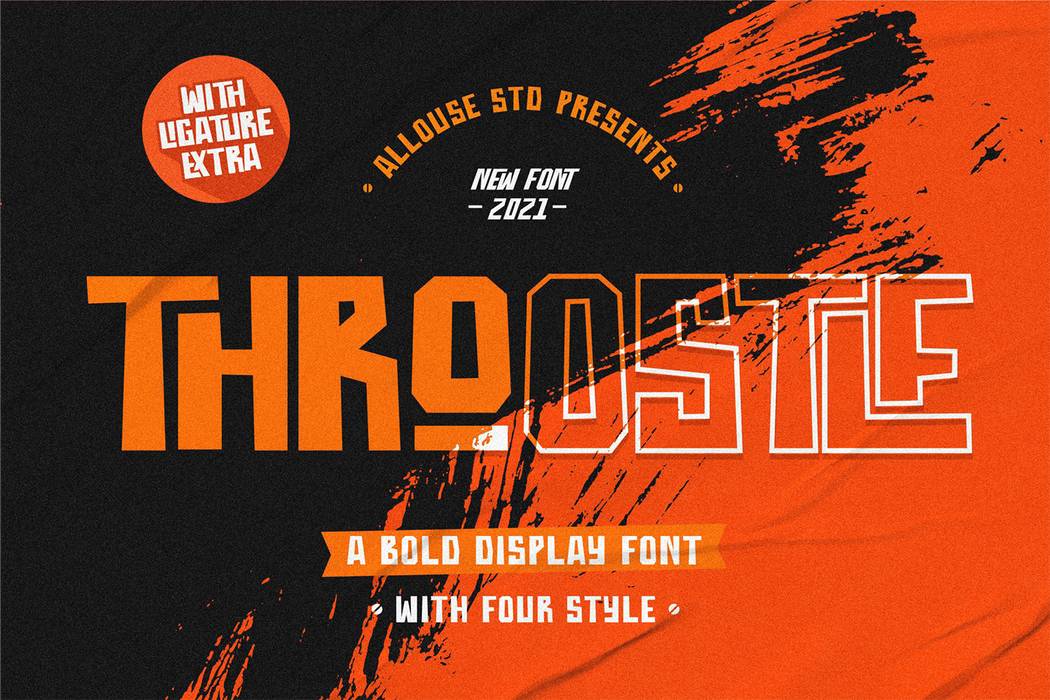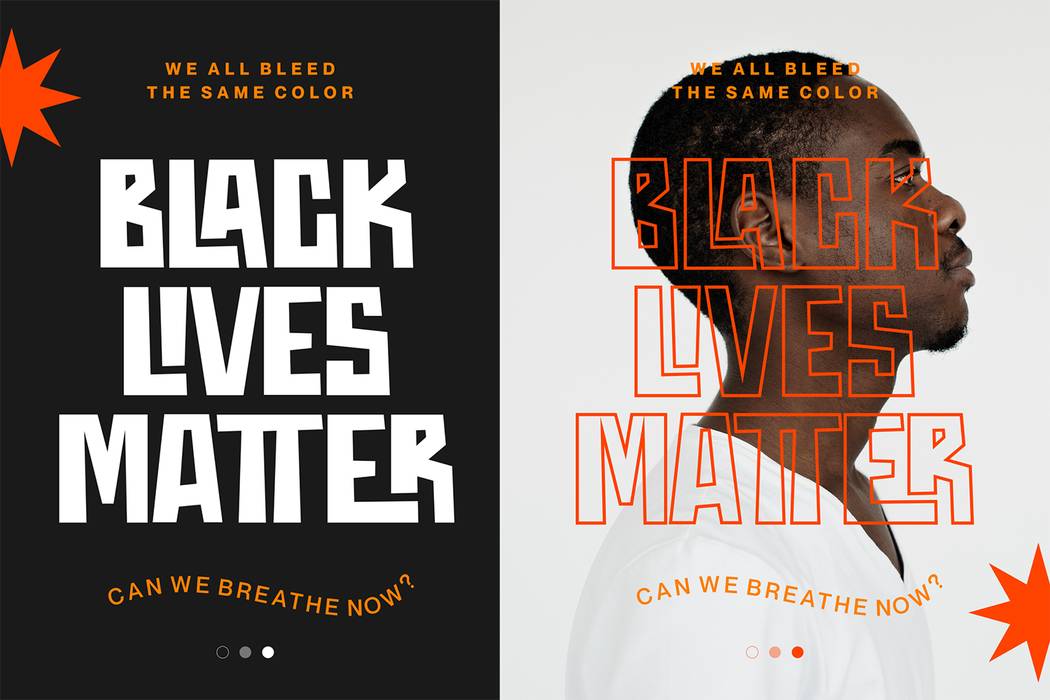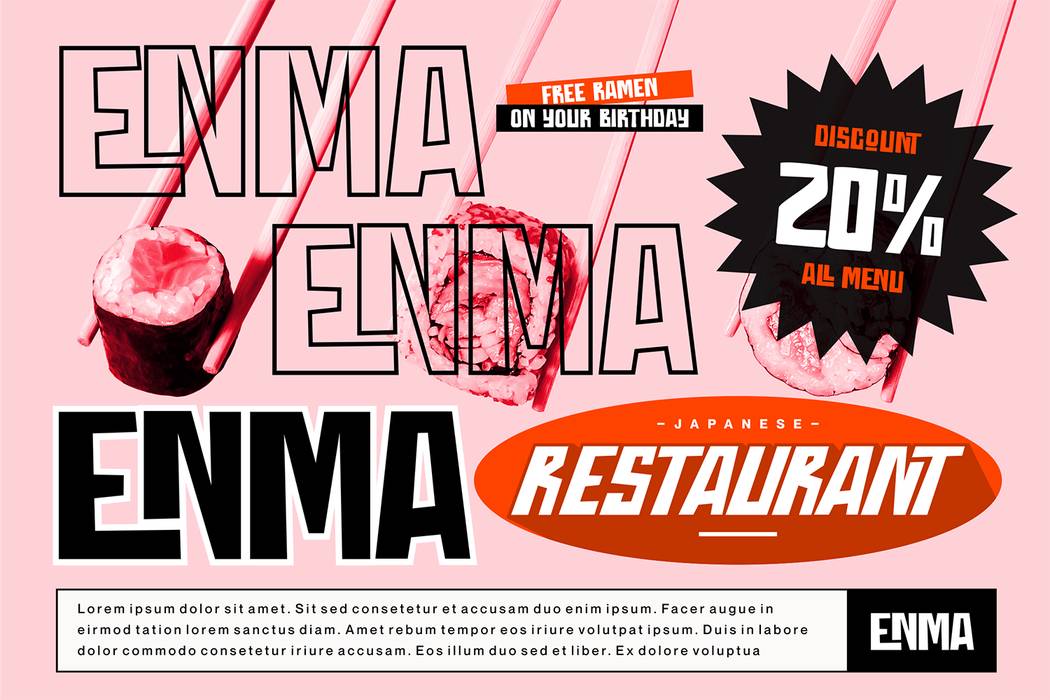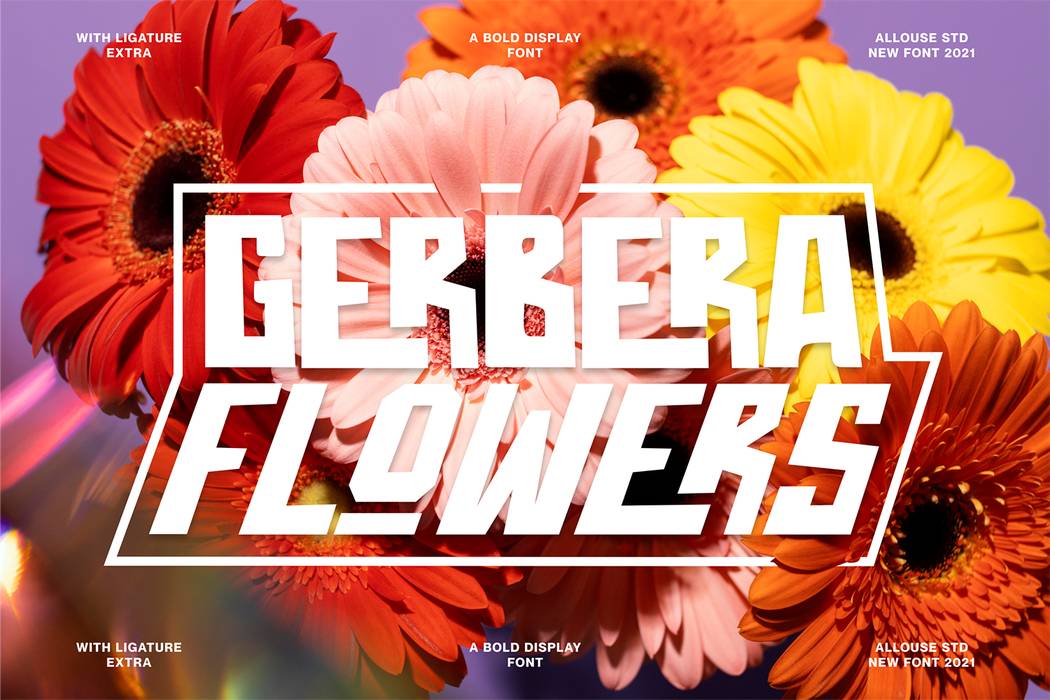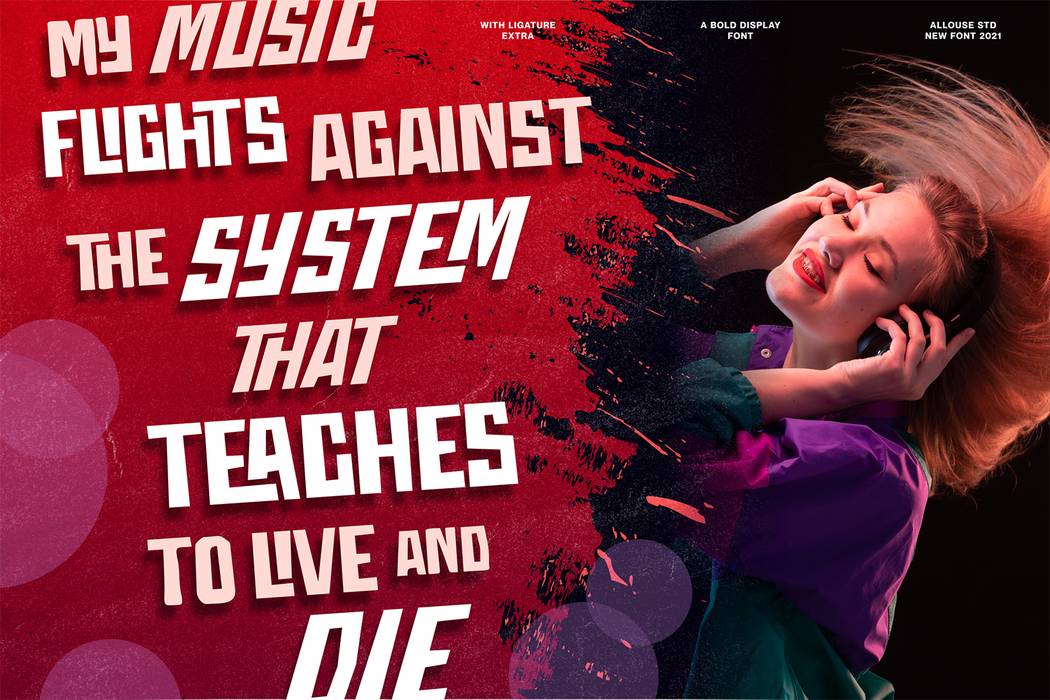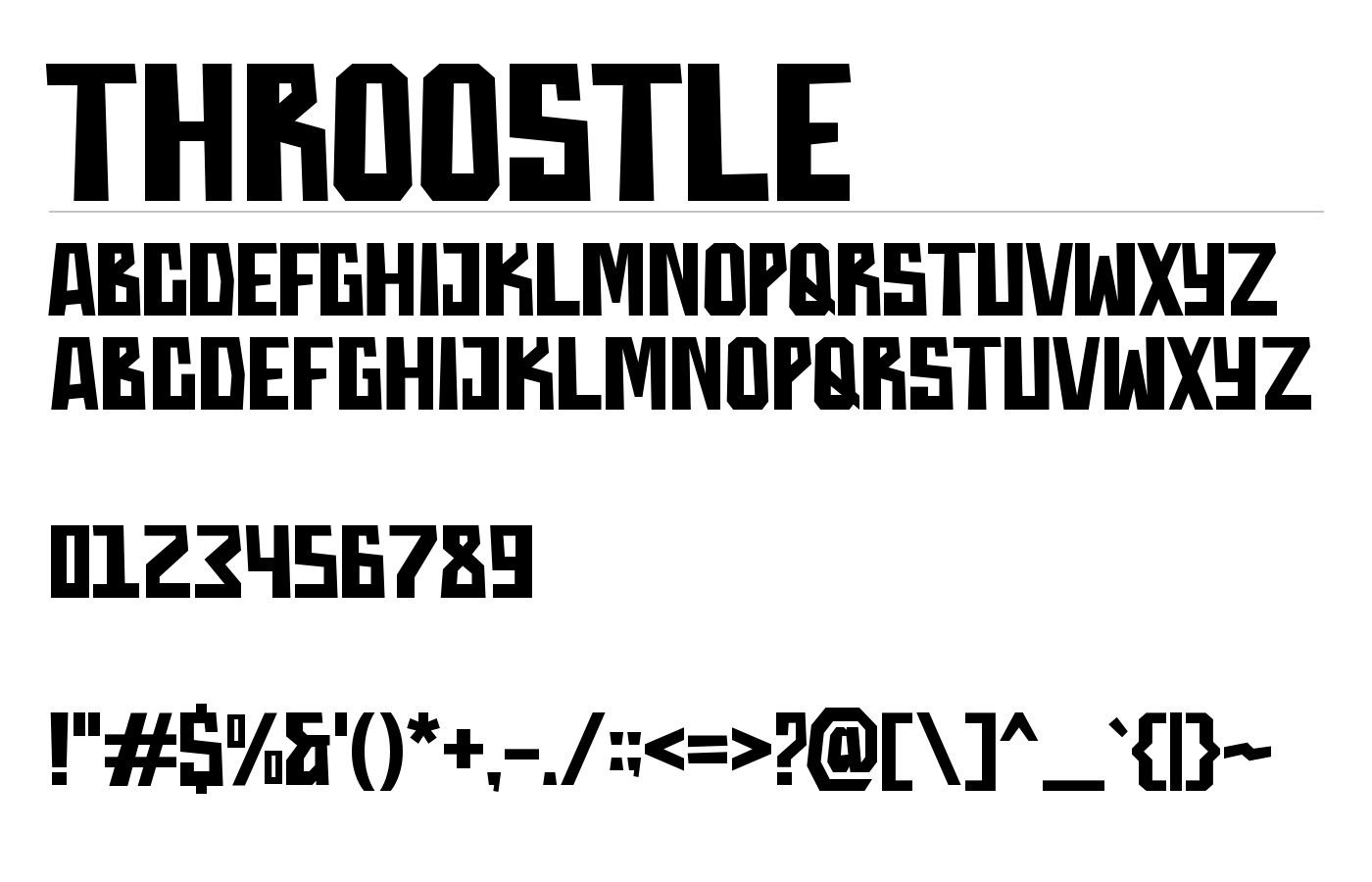
Throostle is a bold, condensed sans serif font with a strong geometric influence and slightly irregular, handcrafted shapes that give it a unique, edgy character. Its high x-height and solid weight make it highly readable in display sizes, conveying a modern, energetic, and slightly adventurous vibe. This font works great for striking headlines, posters, branding, and packaging where a distinctive, confident style is needed.
Throostle Font
About Throostle Font
| Font family | Throostle Font |